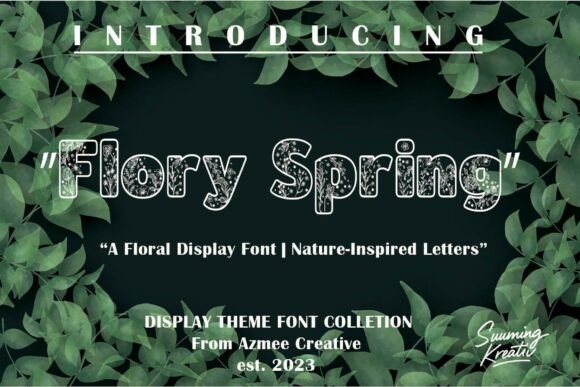
Introducing Flory Spring Font: A Nature-Inspired Display Font for Your Creative Projects
Are you looking for a font that can add a refreshing and elegant touch to your designs? Look no further than Flory Spring Font, a beautiful nature-inspired display font filled with delicate floral details and leafy textures. This stunning font is perfect for bringing the beauty of springtime to your creative projects, from invitations and logos to product packaging and digital crafts.
Font Style:
- Theme: Floral, Botanical, Nature-inspired
- Color tone: Soft green & leaf pattern
Perfect For:
- Spring / Nature projects
- Greeting cards & invitations
- Wedding & branding
- Crafting & sublimation
- Logo design & packaging
Endless Design Possibilities with Flory Spring Font
Flory Spring Font is a versatile font that can be used for a wide range of design projects. Here are some ideas to get you started:
- Wedding Stationery: Use Flory Spring Font to create beautiful wedding invitations, save-the-date cards, and wedding menus.
- Greeting Cards: Add a personal touch to your greeting cards with this charming font.
- Branding: Use Flory Spring Font to create a unique and memorable brand identity for your business.
- Product Packaging: Add a touch of elegance to your product packaging with this beautiful font.
- Digital Crafts: Use Flory Spring Font to create stunning digital crafts, such as printable art and planners.
The Benefits of Using Flory Spring Font
Flory Spring Font offers a range of benefits that make it a great choice for your design projects. Here are some of the advantages of using this font:
- Unique and Eye-catching: Flory Spring Font is a one-of-a-kind font that will make your designs stand out from the crowd.
- Elegant and Refined: This font has an elegant and refined feel that is perfect for creating sophisticated designs.
- Versatile: Flory Spring Font can be used for a wide range of design projects, from wedding stationery to product packaging.
Tips for Using Flory Spring Font
Here are some tips for using Flory Spring Font in your design projects:
- Pair it with a Simple Font: Pair Flory Spring Font with a simple font to create a beautiful contrast.
- Use it for Headings: Use Flory Spring Font for headings and titles to add a touch of elegance to your designs.
- Experiment with Colors: Experiment with different colors and textures to bring out the beauty of this font.
- Use it for Digital Projects: Use Flory Spring Font for digital projects, such as printable art and planners.